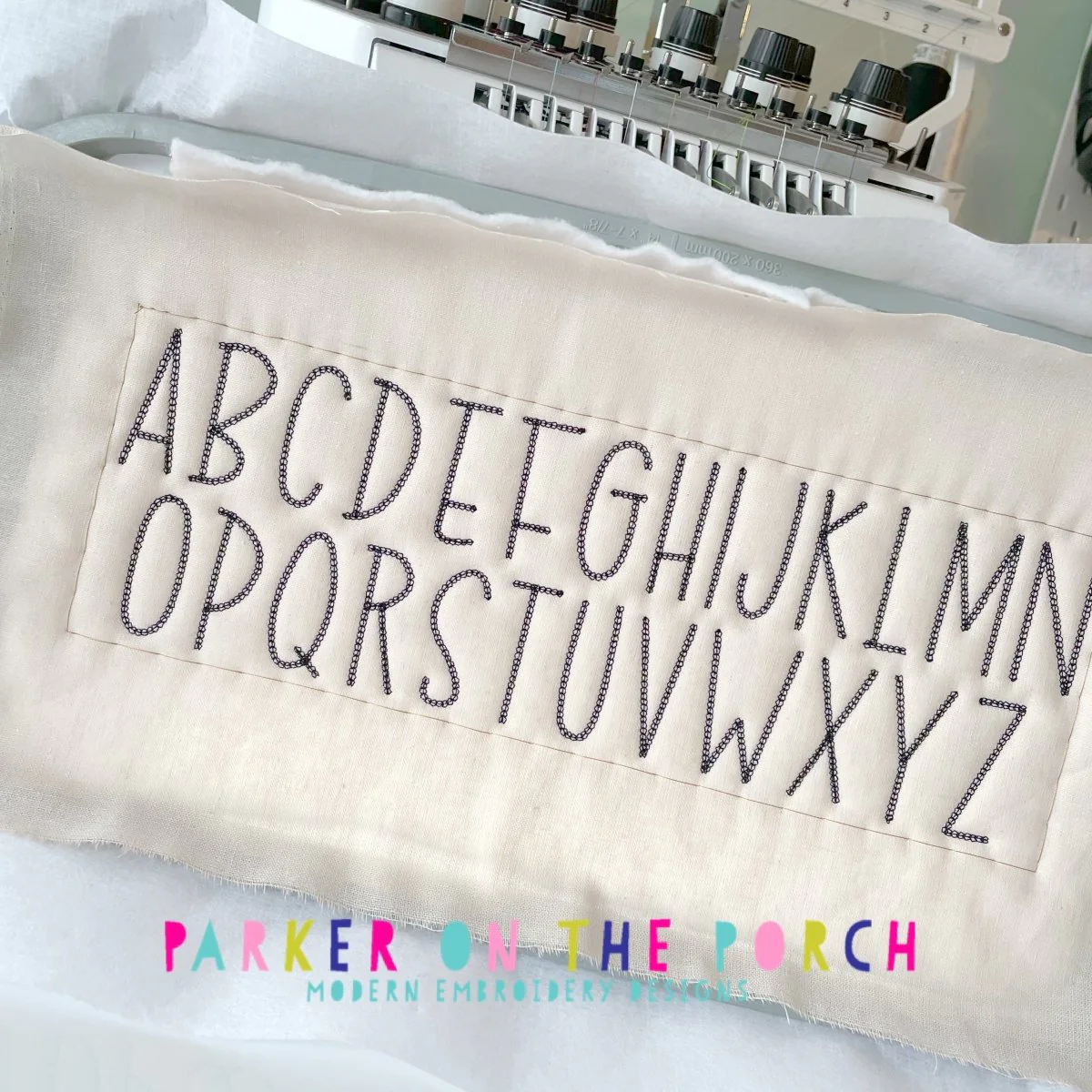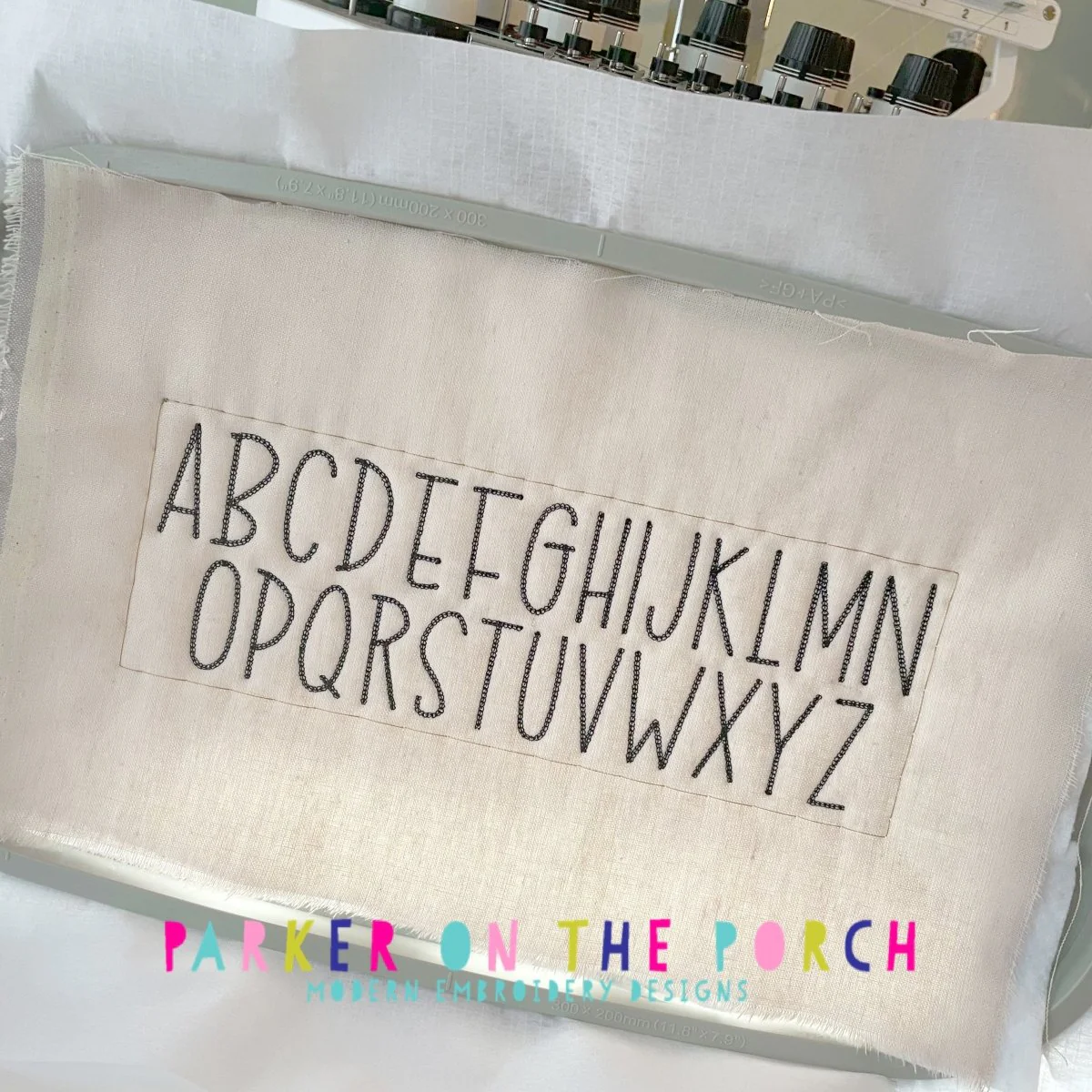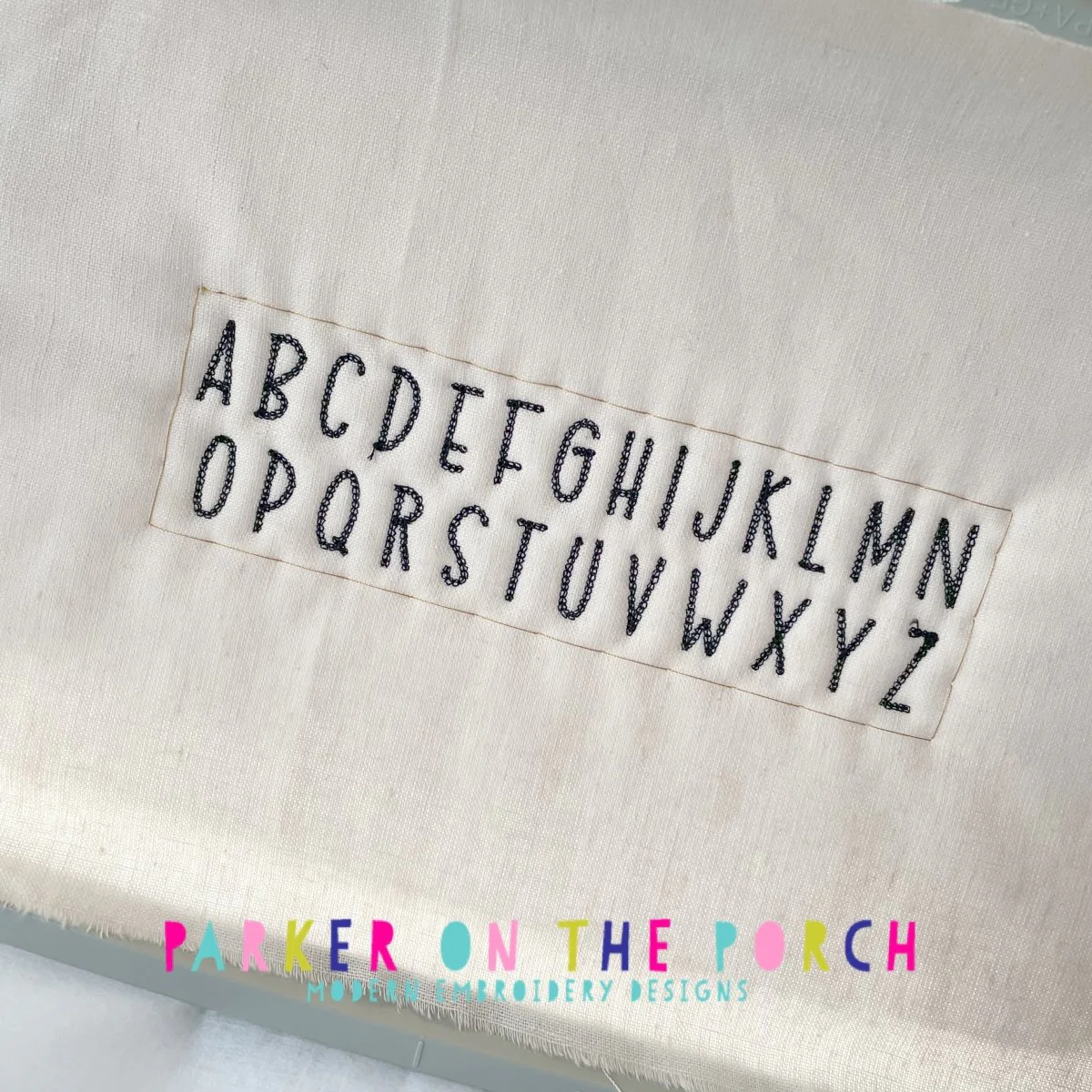
Digital Download- Font- Mr. Stretch Vintage Chain
Vintage Chain stitching font. You must know how to merge designs on your embroidery machine or in embroidery software to use this file. Examples of this font can be found on the Home Sweet Home Collection and Home for the Holidays collections (and more!)